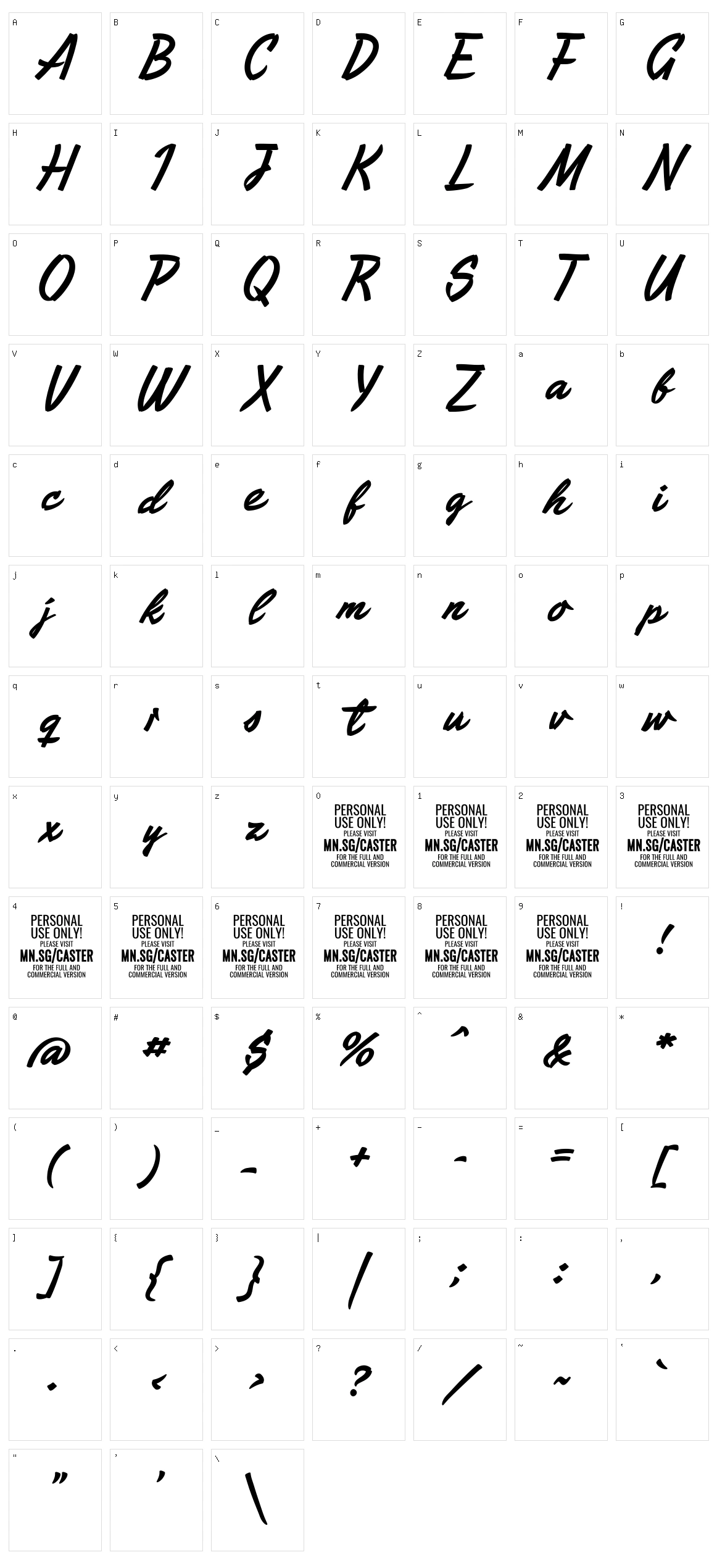
Caster is a thick poster script, created by Måns Grebäck during 2019.
It is a high quality typeface and has energetic, drama-filled letter forms.
It contains all necessary symbols and supports a wide range of languages.